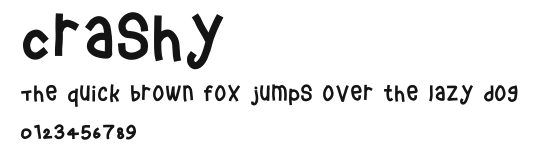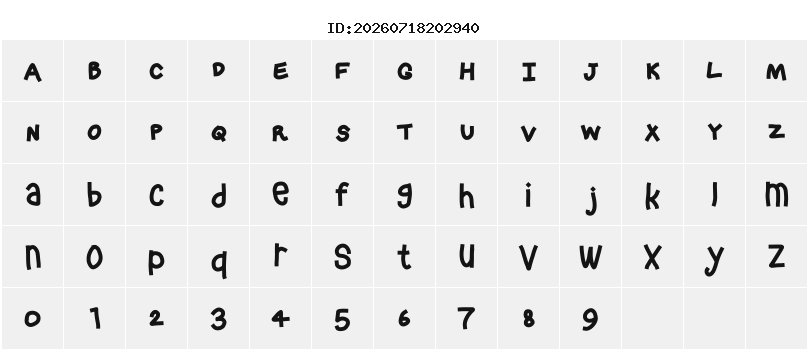
Crashy Preview
• Font Name: Crashy
• Full Font Name: Crashy
• PostScript Name: Crashy
• Character Count: 84
About Crashy.ttf
Crashy.ttf is a modern, elegant sans-serif font designed for ultimate readability and visual harmony. Perfect for branding, headlines, web design, and print materials.